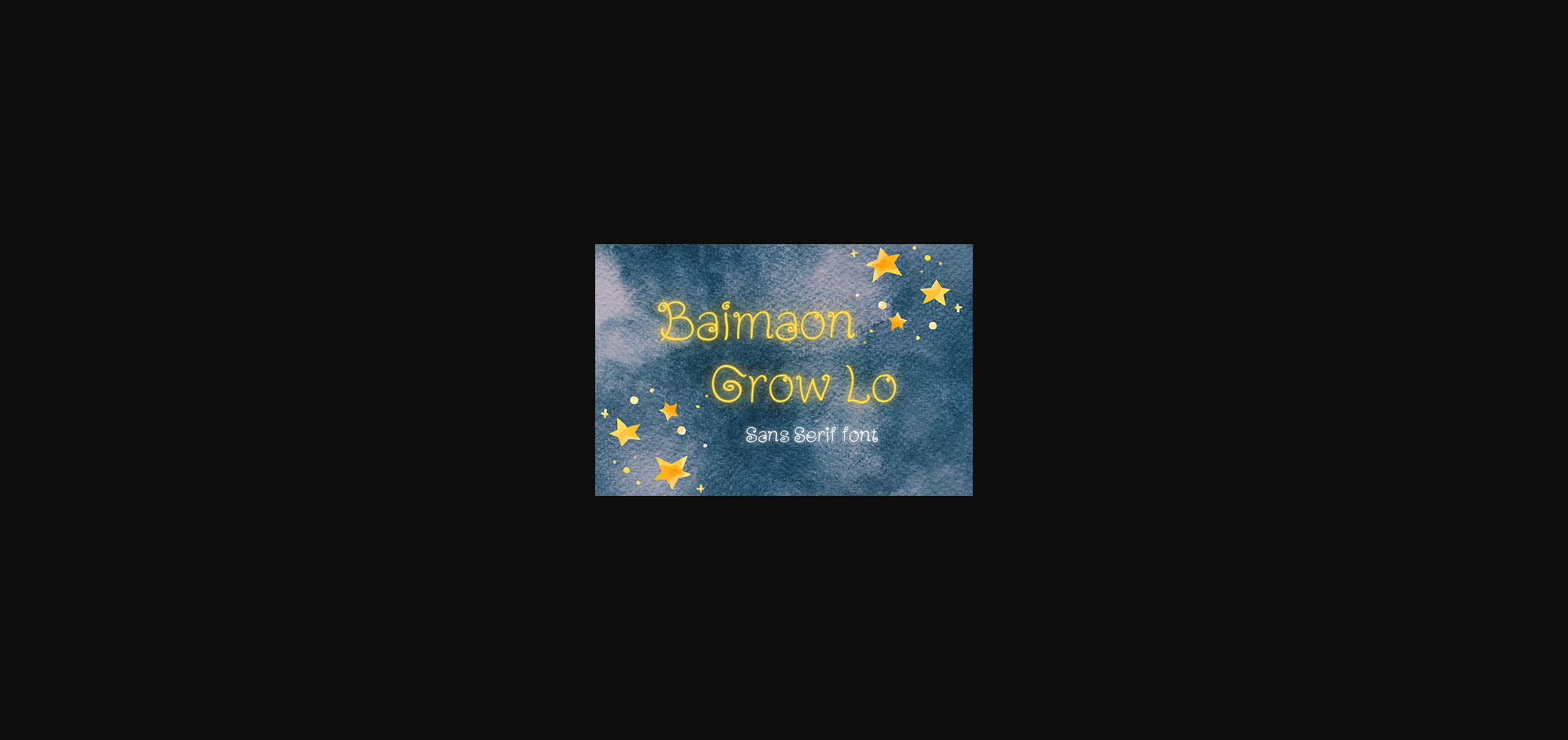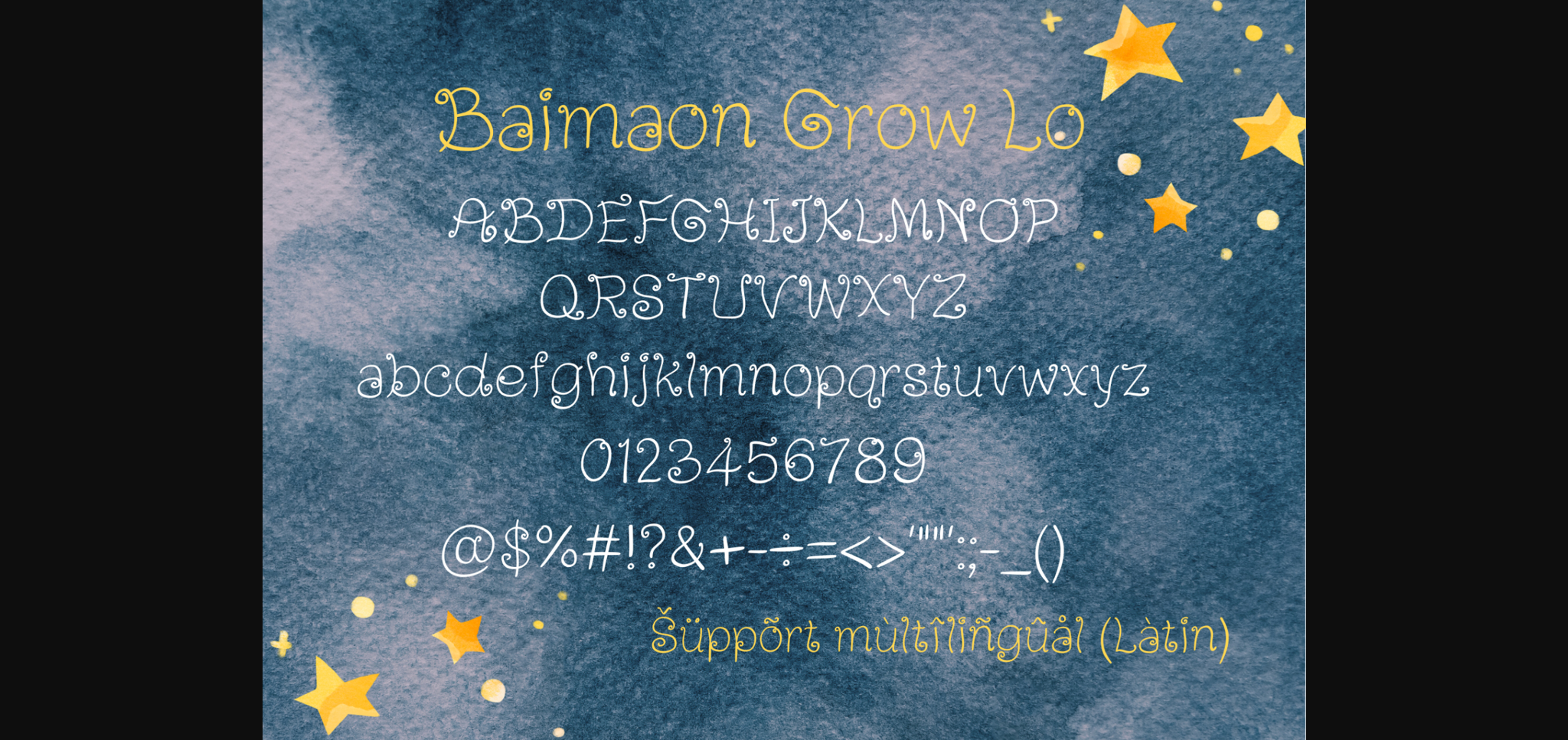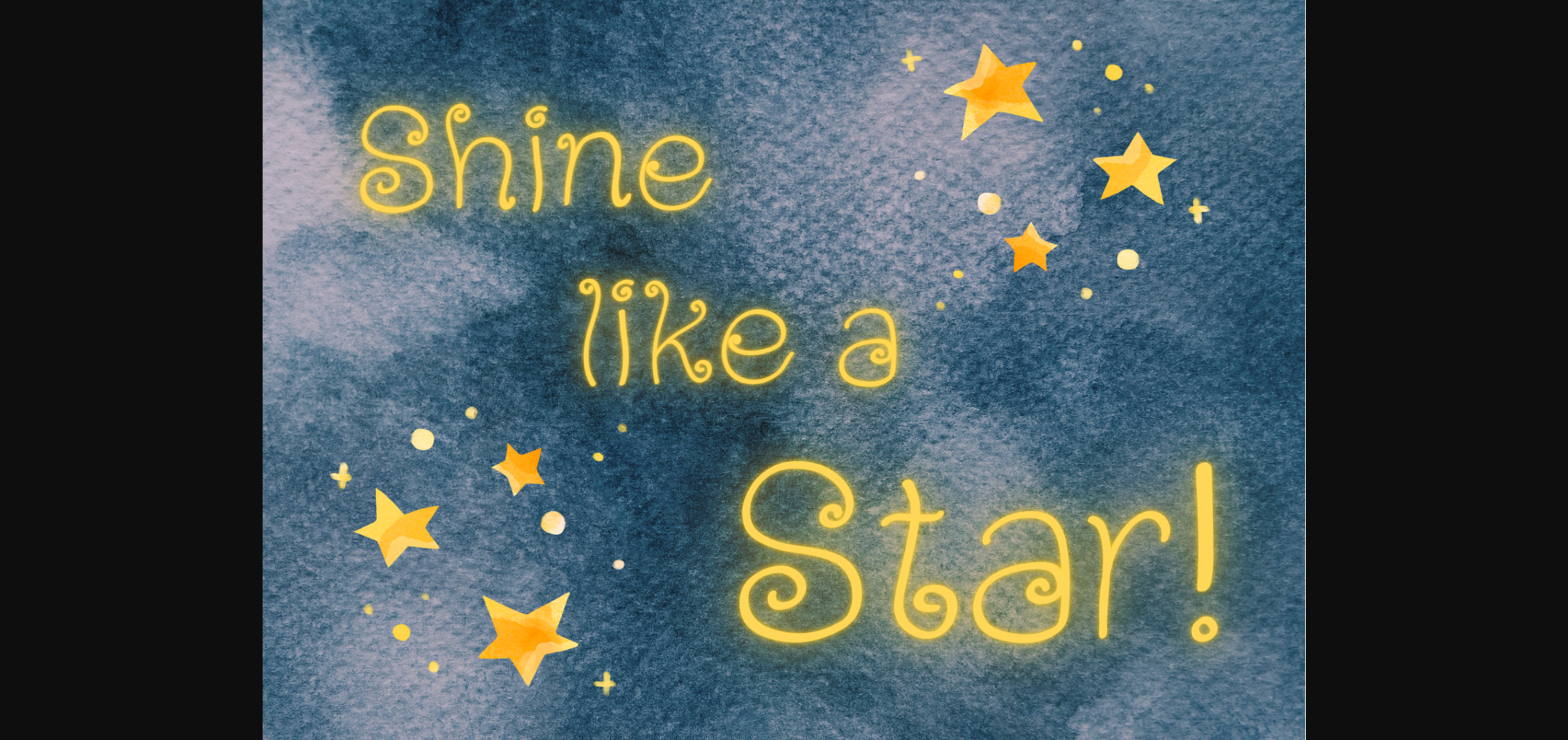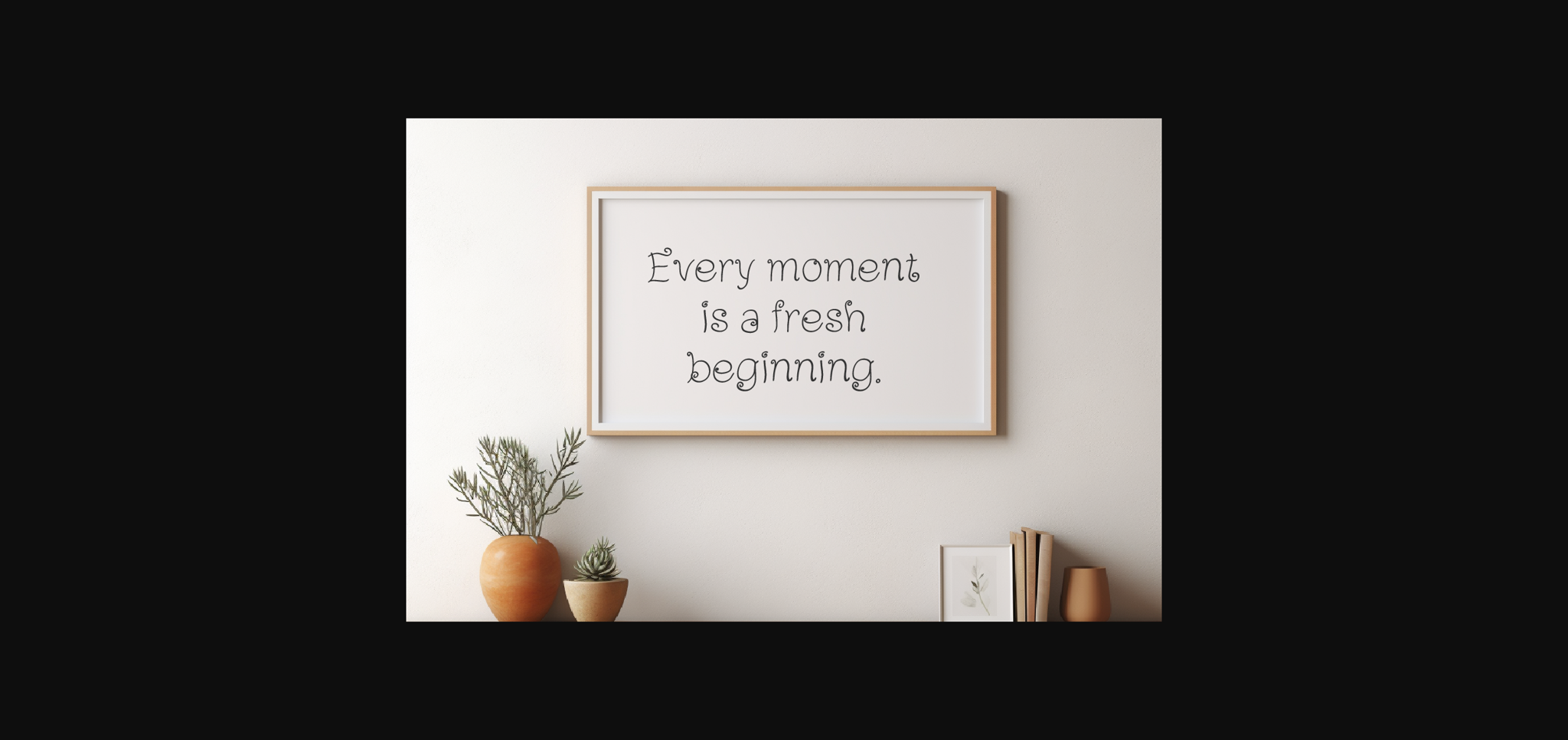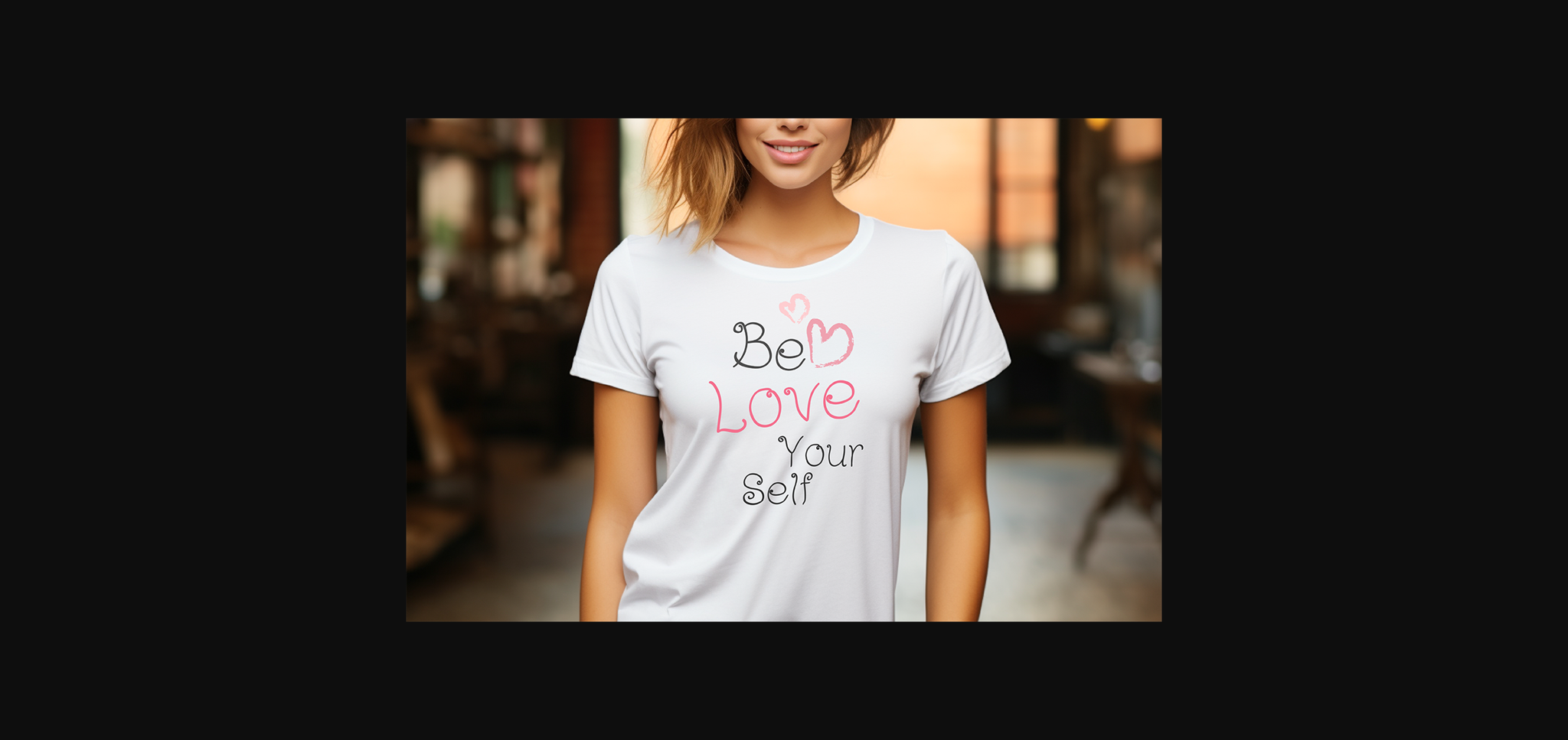
Baimaon Grow Lo Font
About Baimaon Grow Lo Font
Baimaon Grow Lo is a quirky, cute and and fun handwritten font. Its informal style and casual vibe. It would be awesome to your fun projects or diary planner, on wedding invitations, thank you cards, quotes, greeting cards, logos, posters, social media posts posters, blogs, bag, T Shirt, clothing and other designs. so add it to your creative ideas and notice how it makes them stand out. ^^